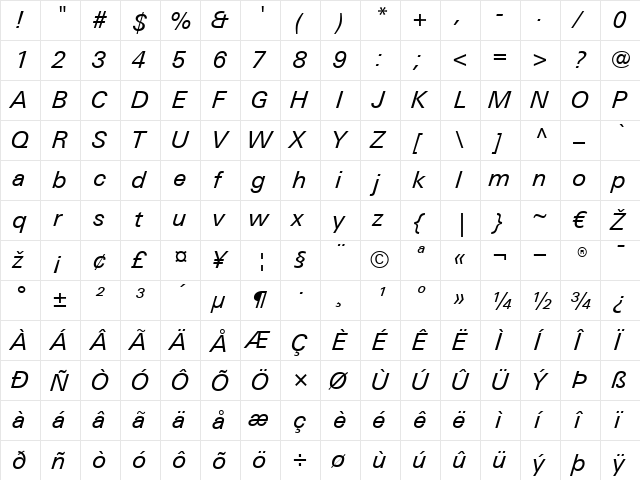
LTUnivers 431 BasicRegIt Regular
| Designer | Adrian Frutiger |
Design Context for LTUnivers 431 BasicRegIt Typeface
LTUnivers 431 BasicRegIt is a composed and adaptable typeface that performs quietly and consistently across a wide range of design contexts.
Pro Tip: Pair LTUnivers 431 BasicRegIt with a font of contrasting weight or personality to build a more expressive typographic hierarchy.